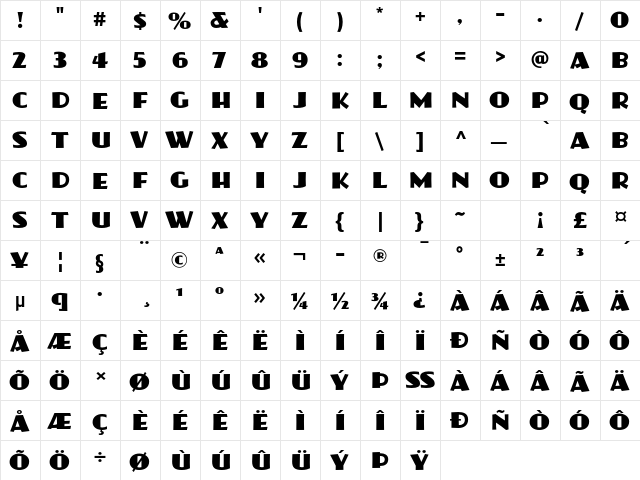
Bonita Std Regular
Design Context for Bonita Std Typeface
Bonita Std is a composed and adaptable typeface that performs quietly and consistently across a wide range of design contexts.